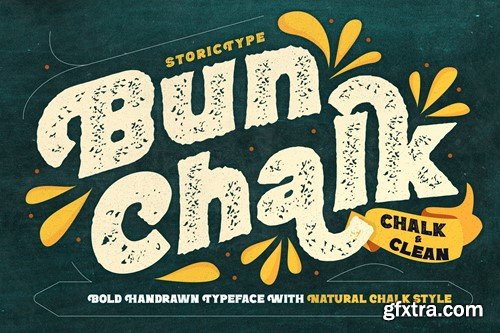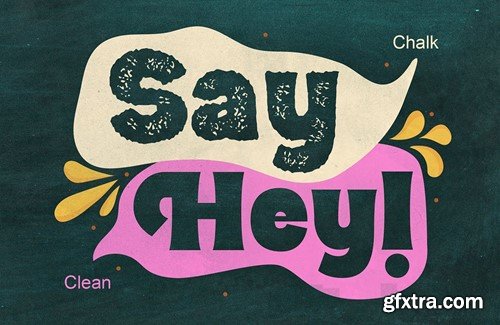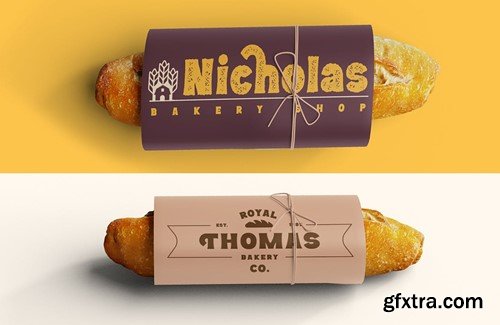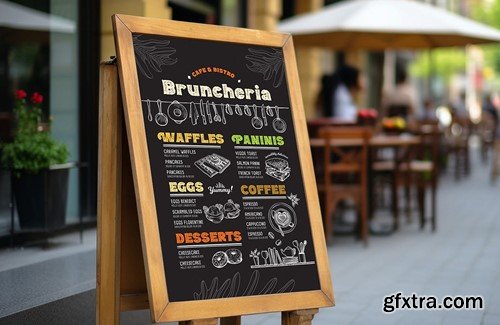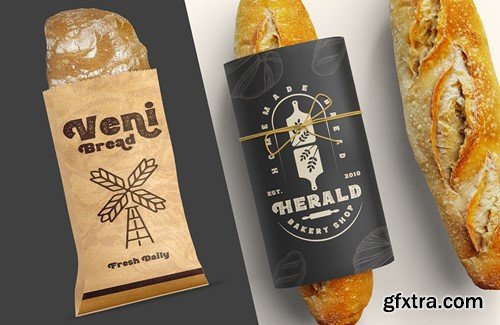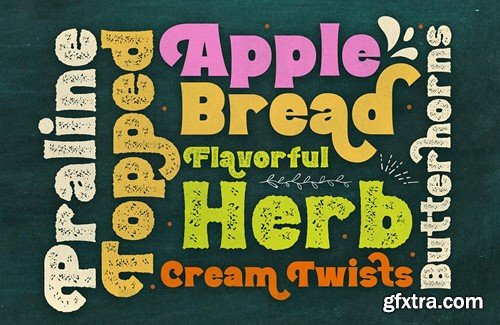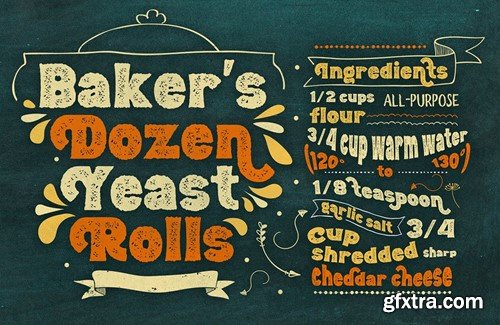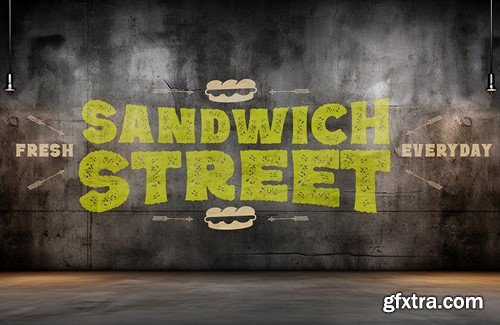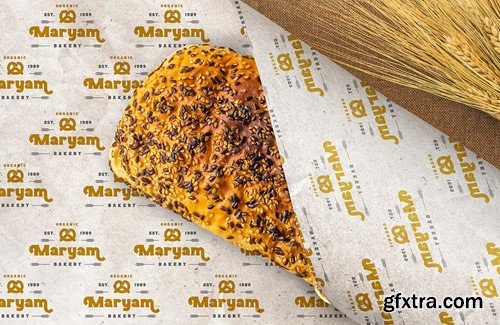
BonChalk - Display Font Duo JU7U3HK
Introducing BunChalk Typeface Here is new product, It's called Bun Chalk . BunChalk inspired by many lettering on menuboard chalk cafe and bistro, and it's specially designed for the resto who use chalk concept,menuboard Chalk up your brand with our one-of-a-kind chalk concept! Leave your mark and get noticed with custom branded chalk that makes a statement. Whether you're a hip cafe, a stylish boutique, or a savvy startup, our branding chalk is the perfect way to spread the word about your business. Write inspirational quotes, menu specials, sales announcements, or just your logo all over your windows and sidewalks. Made from handmade quality chalk texture that goes on clean and texture typeface, it's ideal for businesses who want to grab attention and stand out from the crowd. Let potential customers know you're there with playful, eye-catching branded chalk that gets your name seen. This is what you'll be get : Make your mark today! Thank you and enjoy designing :)